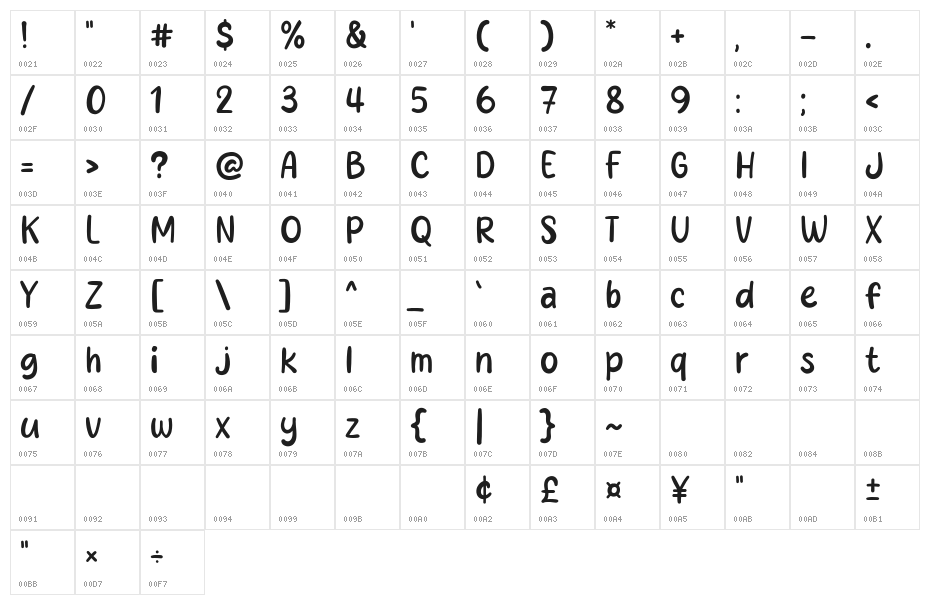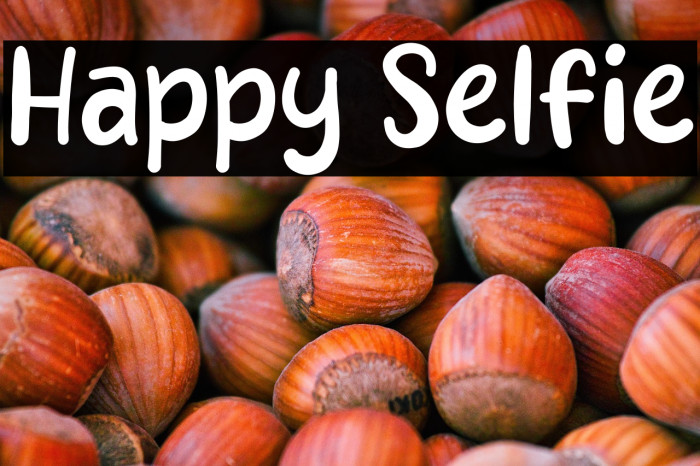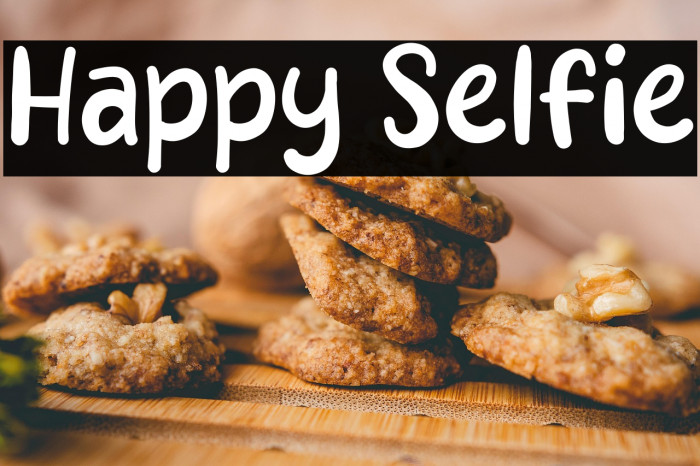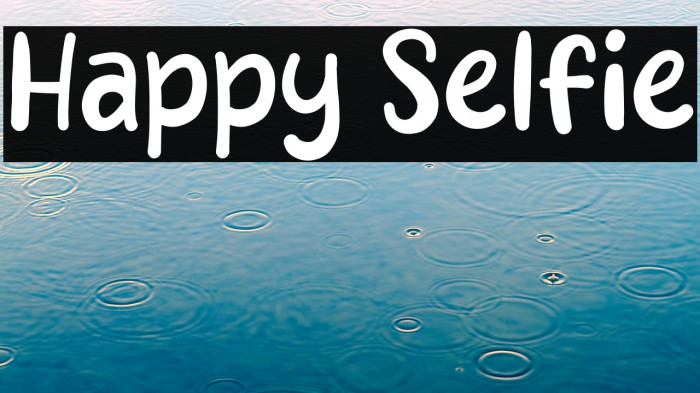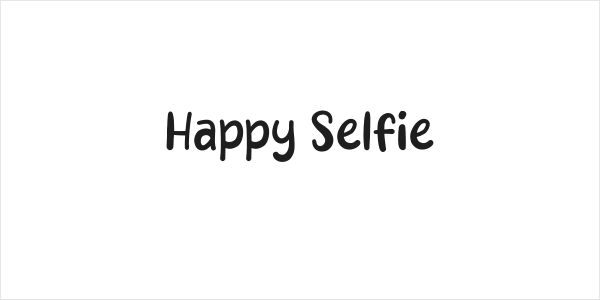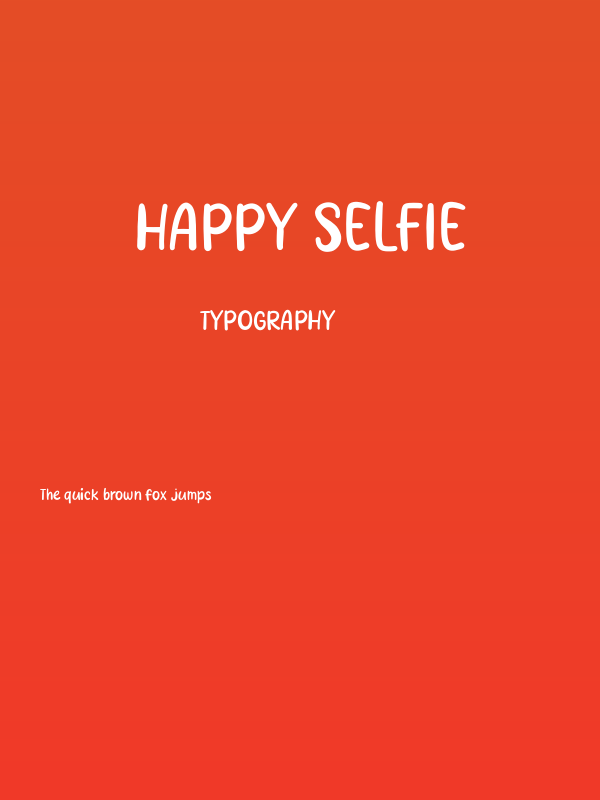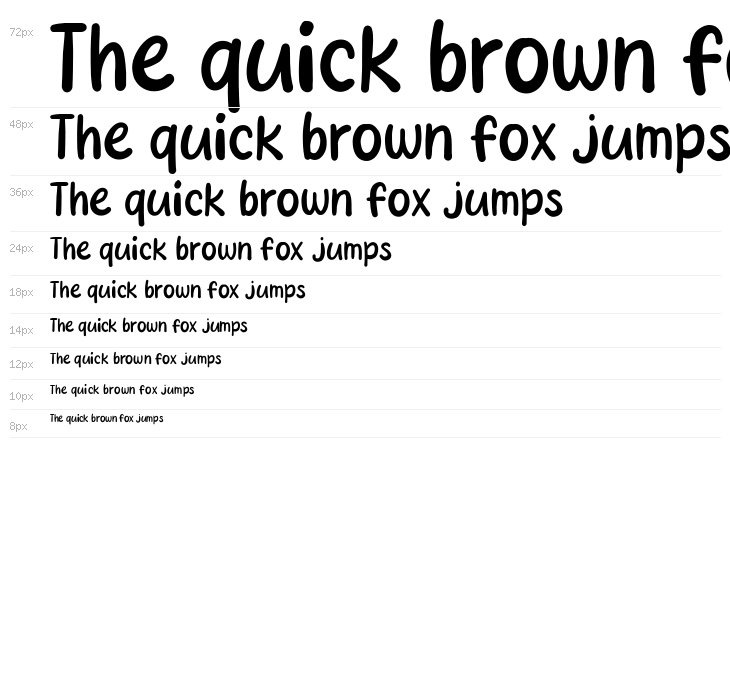
Happy Selfie Font
Happy Selfie Description
This playful and friendly font features rounded, hand-drawn characters that exude a sense of warmth and approachability. The letters are bold and slightly irregular, giving them a whimsical and informal appearance. The uppercase and lowercase letters maintain a consistent style, with smooth curves and a casual flow. Numbers and special characters are crafted with the same playful spirit, making the font versatile for various creative projects. Its unique charm makes it ideal for designs that aim to convey fun and positivity.
| Use Case | Headlines, Logos, Social media graphics |
| Proposed Projects | Ideal for children's books, greeting cards, playful branding, and social media graphics. |